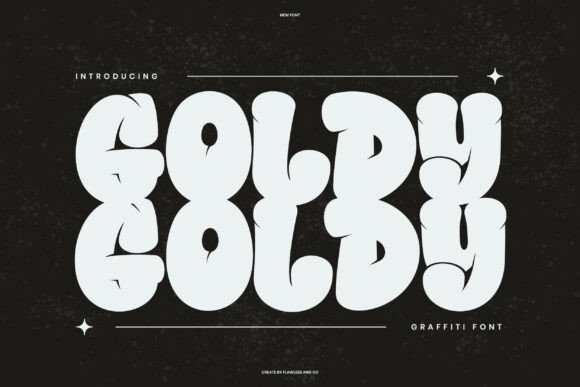
Introducing Goldy Font: The Bold and Playful Display Font for Street Art Enthusiasts
Are you looking for a font that can add a touch of raw energy and rebelliousness to your designs? Look no further than Goldy Font, a bold and playful display font that channels the spirit of street art. Inspired by chunky bubble lettering and classic graffiti drip effects, Goldy Graffiti is the perfect choice for designers who want to make a statement.
The Inspiration Behind Goldy Font
Goldy Font is inspired by the vibrant and dynamic world of street art. The font’s creator was drawn to the chunky bubble lettering and classic graffiti drip effects that are characteristic of urban art. With Goldy Graffiti, you can bring a taste of that urban edge to your designs, adding a bold and playful touch that’s sure to turn heads.
The Characteristics of Goldy Font
So, what makes Goldy Font so special? Here are just a few of the key characteristics that set it apart:
- Bold and Playful: Goldy Font is a bold and playful display font that’s perfect for making statements. Its chunky lettering and graffiti drip effects give it a fun and energetic vibe that’s sure to grab attention.
- Hand-Drawn Attitude: Goldy Graffiti has a hand-drawn attitude that’s full of fun and expression. It’s the perfect choice for designers who want to add a personal touch to their work.
- Urban Edge: With its inspiration from street art, Goldy Font brings an urban edge to your designs. It’s perfect for creating eye-catching urban posters, music cover designs, streetwear branding, stickers, and edgy merchandise.
Uses for Goldy Font
So, what can you use Goldy Font for? The possibilities are endless, but here are a few ideas to get you started:
- Urban Posters: Create eye-catching urban posters that demand attention. Goldy Font is perfect for adding a bold and playful touch to your poster designs.
- Music Cover Designs: Add a touch of urban edge to your music cover designs with Goldy Graffiti. Its bold and playful vibe is sure to appeal to music lovers.
- Streetwear Branding: Goldy Font is perfect for streetwear branding, adding a hand-drawn attitude that’s full of fun and expression.
- Stickers and Merchandise: Create edgy merchandise and stickers with Goldy Graffiti. Its bold and playful vibe is sure to appeal to fans of street art.
Why Choose Goldy Font?
So, why choose Goldy Font for your next design project? Here are just a few reasons:
- Unique and Eye-Catching: Goldy Font is a unique and eye-catching display font that’s sure to grab attention.
- Highly Versatile: Goldy Graffiti is highly versatile, making it perfect for a wide range of design projects.
- Easy to Use: Goldy Font is easy to use, even for designers who are new to working with display fonts.
Tips for Using Goldy Font
Here are a few tips for getting the most out of Goldy Font:
- Experiment with Colors: Goldy Graffiti looks great in a range of colors, so don’t be afraid to experiment and find the perfect hue for your design.
- Play with Layouts: Goldy Font is perfect for creating bold and playful layouts. Experiment with different arrangements to find the one that works best for your design.
- Combine with Other Fonts: Goldy Graffiti can be combined with other fonts to create a unique and eye-catching look.
In conclusion, Goldy Font is a bold and playful display font that’s perfect for designers who want to add a touch of raw energy and rebelliousness to their work. Inspired by chunky bubble lettering and classic graffiti drip effects, Goldy Graffiti delivers a loud and rebellious vibe with every character. With its hand-drawn attitude and urban edge, Goldy Font is the perfect choice for a wide range of design projects, from urban posters and music cover designs to streetwear branding, stickers, and edgy merchandise.
- What is Goldy Font? Goldy Font is a bold and playful display font that’s inspired by chunky bubble lettering and classic graffiti drip effects.
- What is Goldy Font used for? Goldy Font can be used for a wide range of design projects, including urban posters, music cover designs, streetwear branding, stickers, and edgy merchandise.
- Is Goldy Font easy to use? Yes, Goldy Font is easy to use, even for designers who are new to working with display fonts.